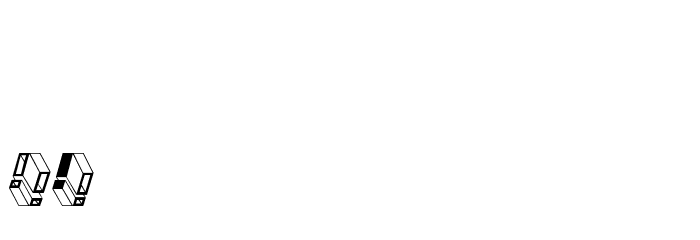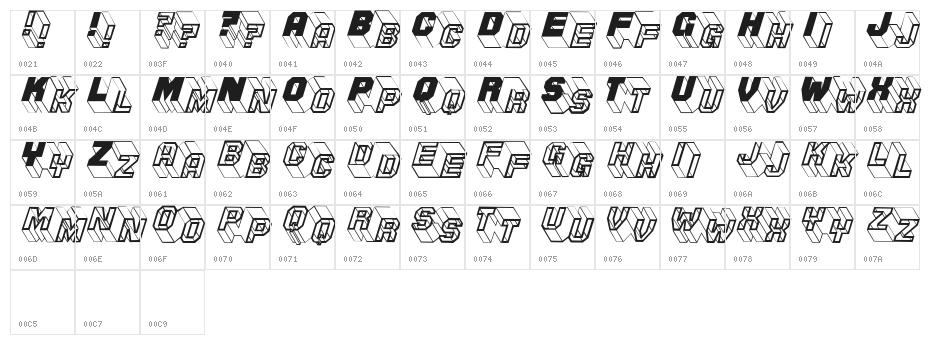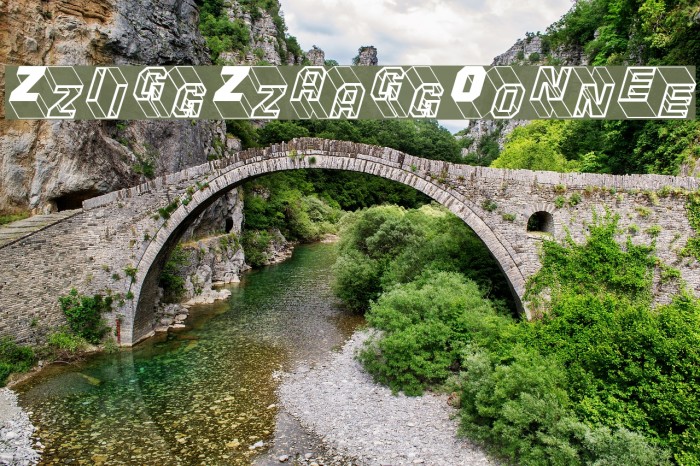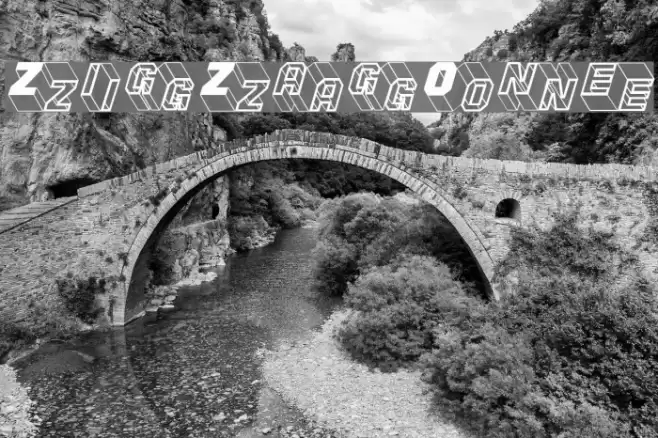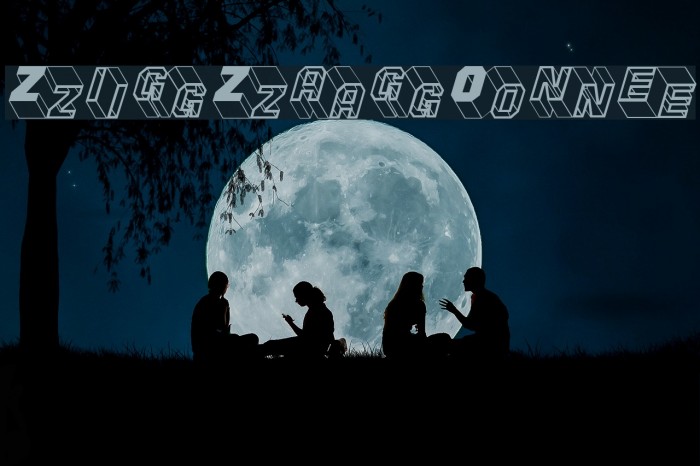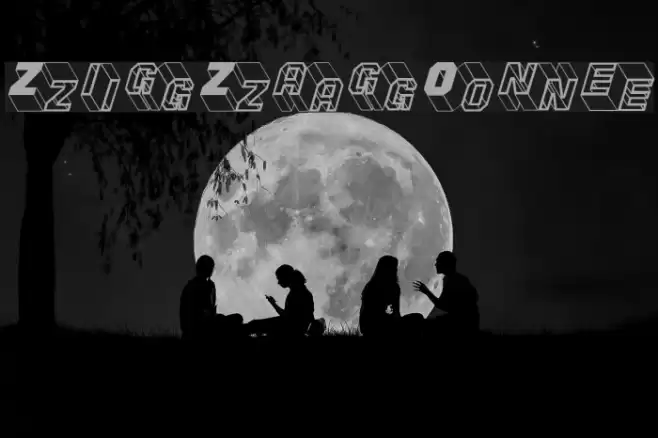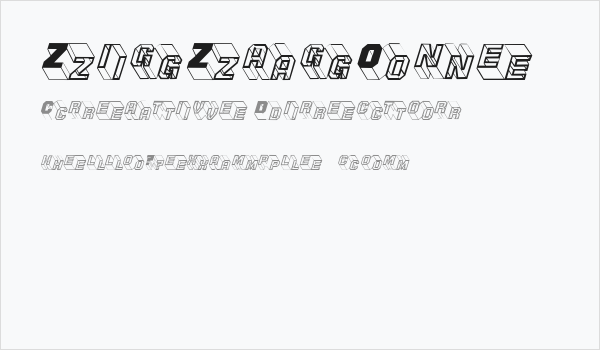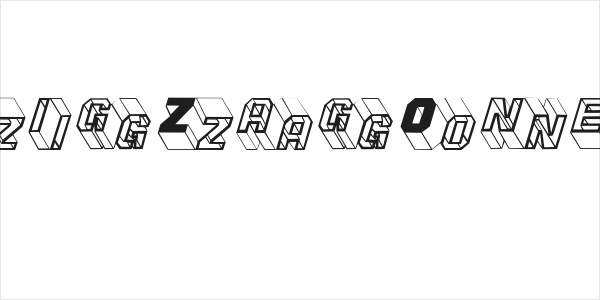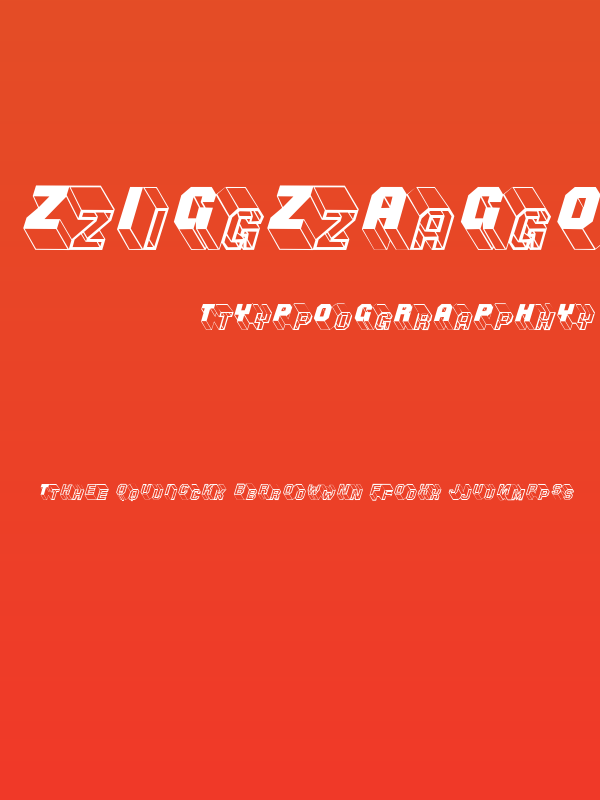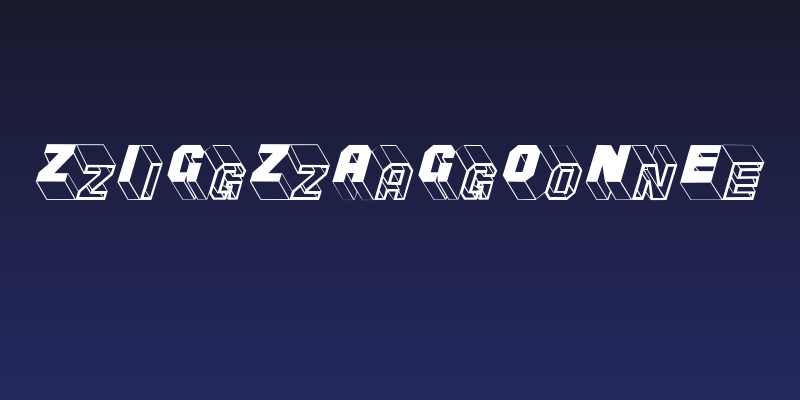
ZigZagOne Font
ZigZagOne Description
This font features a unique 3D block design, where each character is constructed with bold, geometric outlines that create a sense of depth and dimension. The letters are formed with a combination of solid and hollow spaces, giving them a striking, modern appearance. The uppercase and lowercase letters maintain a consistent style, with angular edges and a uniform thickness throughout. The numbers and special characters follow the same design principles, ensuring a cohesive look across all elements. This font's distinct style makes it stand out, ideal for projects that require a bold and eye-catching typeface.